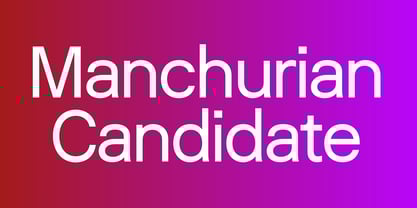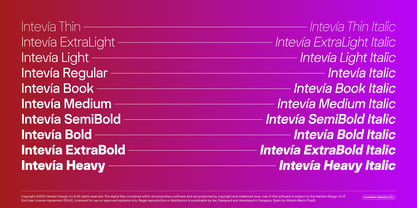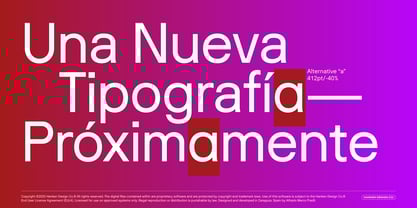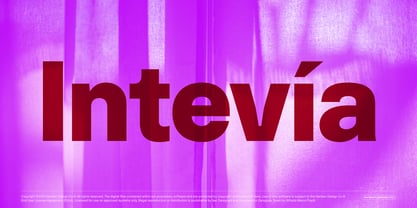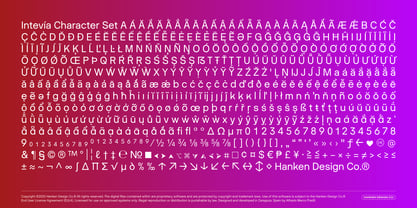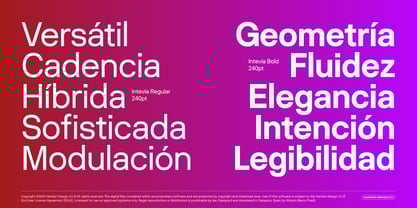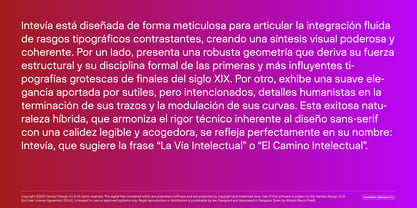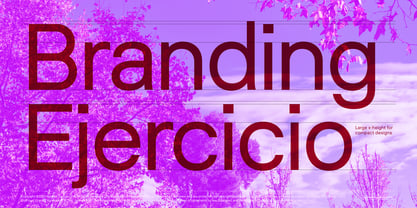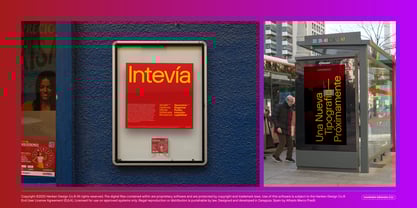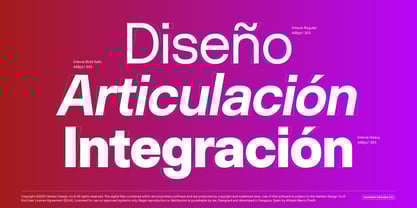
Intevia
Intevía is meticulously crafted to showcase the seamless integration of contrasting typographic traits, resulting in a powerful and coherent visual synthesis. It features a robust geometry that draws structural strength and formal discipline from the influential grotesque typefaces of the late nineteenth century. Complementing this is a soft elegance, highlighted by subtle humanist details in the stroke terminations and curve modulations. This successful hybrid nature harmonizes the technical rigor of sans-serif design with an inviting warmth, perfectly reflected in its name: Intevía, suggesting “The Intellectual Way” or “The Intellectual Path.” The careful fusion results in a font that offers finely tuned legibility, ensuring maximum visual performance at any size. This makes it an optimal choice for applications requiring prolonged reading, including demanding editorial designs, academic publications, and high-volume corporate reports. From a technical perspective, Intevía is a versatile superfamily, providing a wide range of weights from a delicate Thin to a bold Black. Each weight is meticulously optimized for color consistency and uniformity, ensuring that style transitions feel natural rather than abrupt. With extensive Latin character coverage supporting most Western languages, the font includes essential OpenType features such as small caps, standard ligatures, tabular and fractional figures, granting designers maximum flexibility for any compositional or hierarchical need with professional precision. Phonetically, the name Intevía evokes a luminous and fluid quality, echoing its visual attributes. This openness stems from the generous rounding of its counter-forms and balanced syllabic proportions, lending the text block an exceptionally spacious quality with a clear architectural structure that reduces visual fatigue. The typeface serves as a clear communication channel designed for the efficient transmission of complex information. Its dual capacity of being structurally firm yet visually gentle positions it as a modern and timeless typeface, excelling in both high-resolution digital environments and traditional printing. The name Intevía captures the humanist warmth and intention behind the design. The root word "Vía" alludes to the optimized legibility and reading speed the font provides, suggesting that text set in Intevía offers a clear, distraction-free information channel. This makes it ideal for sustained reading applications, from e-book interfaces to detailed technical reports and general publishing. The phonetic quality of the name—three soft, elegant syllables (In-te-vía) with a sweet, musical cadence in Spanish—perfectly complements the font's soft elegance. This balance reinforces the geometric structure with the visual harmony necessary for comfortable, prolonged content consumption. Thus, the strategic brand profile emphasizes the values of Guidance (facilitating the visual journey), Communication Clarity, and Fluency throughout the reading experience.